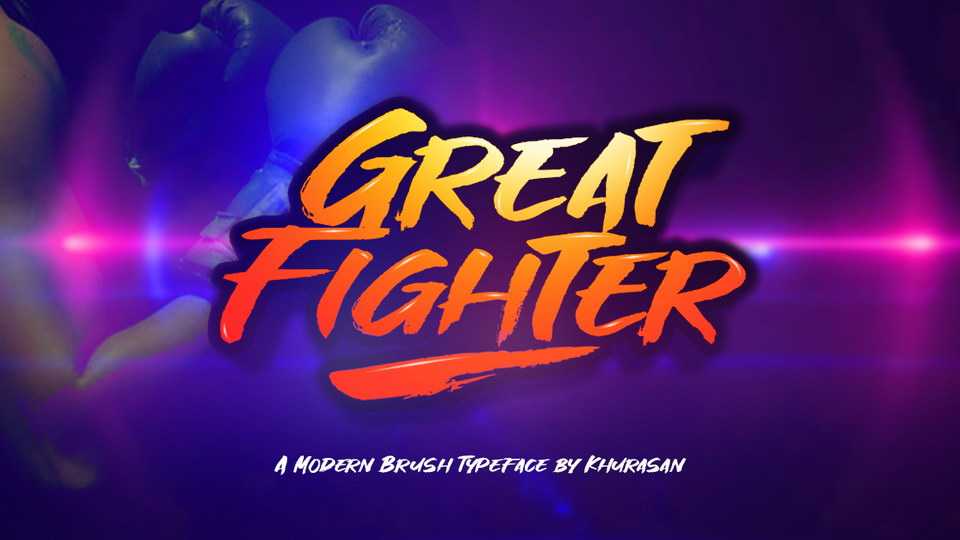
Download Great Fighter font, an energetic hand painted brush script. Great Fighter font fits great for posters, flyers, banners, movie covers, t-shirts and apparel, social media and more.